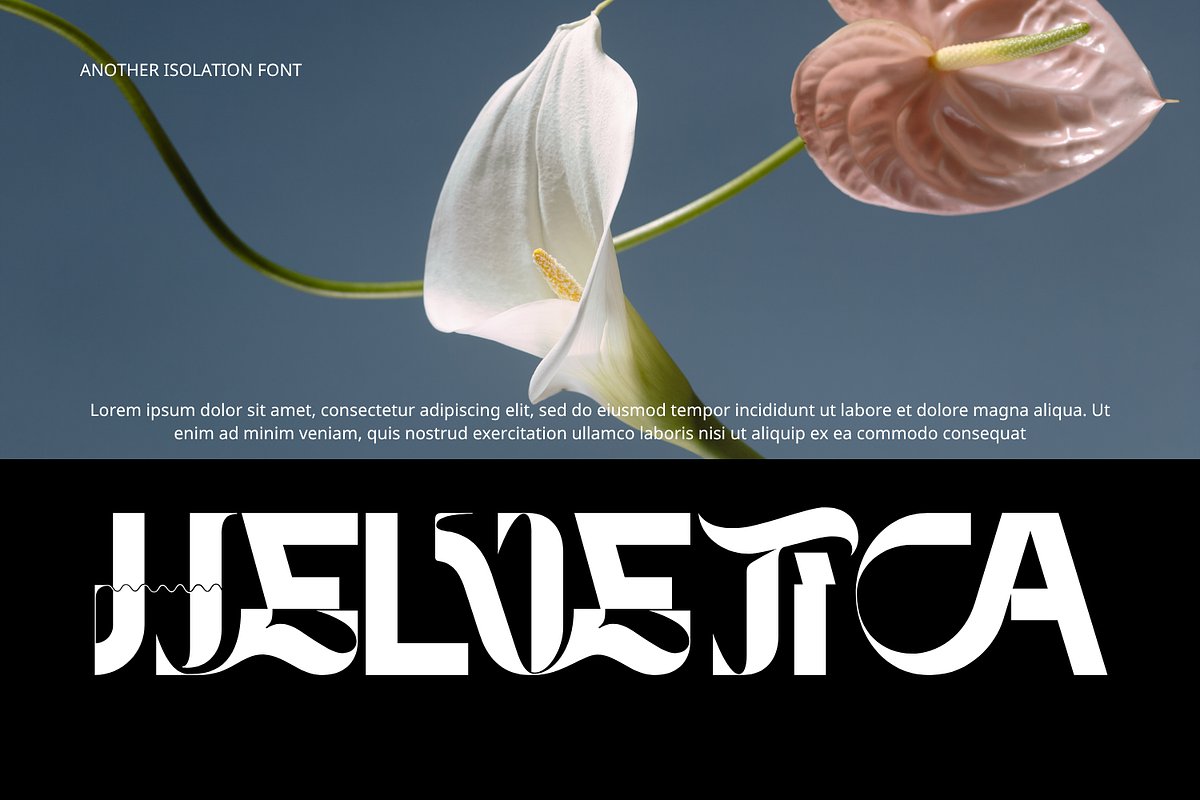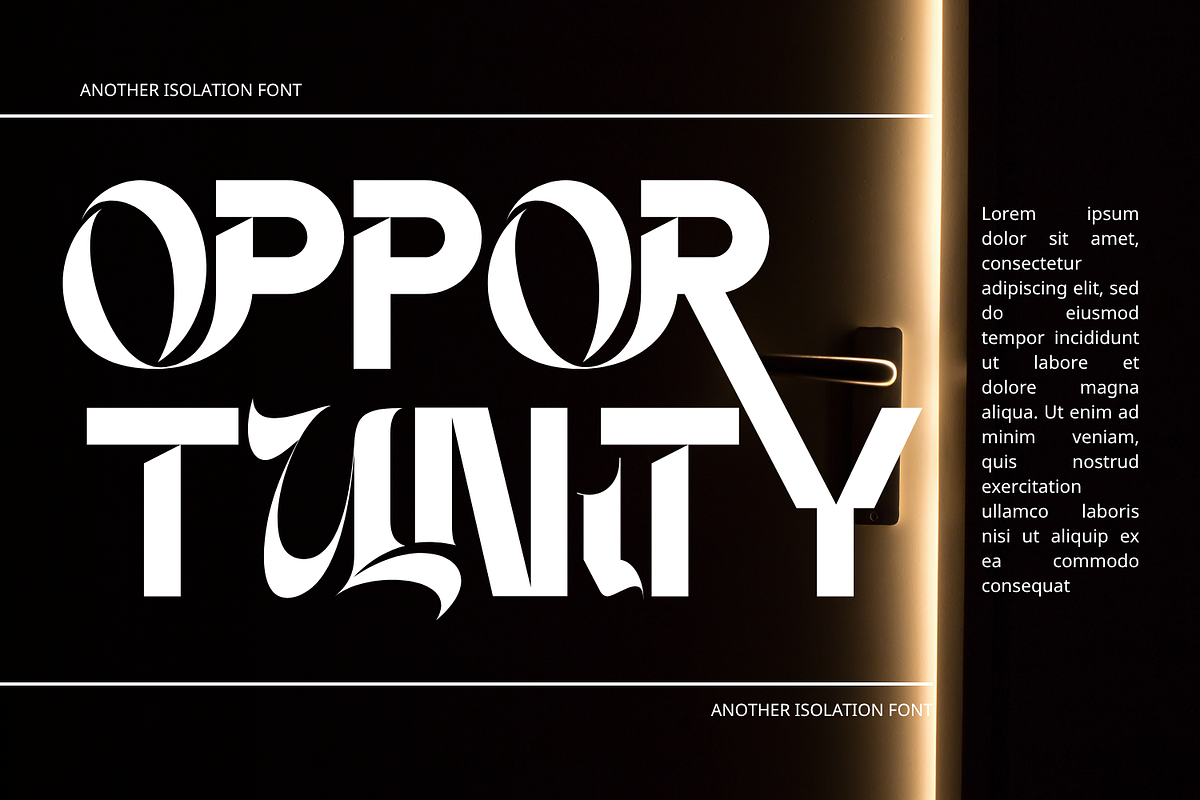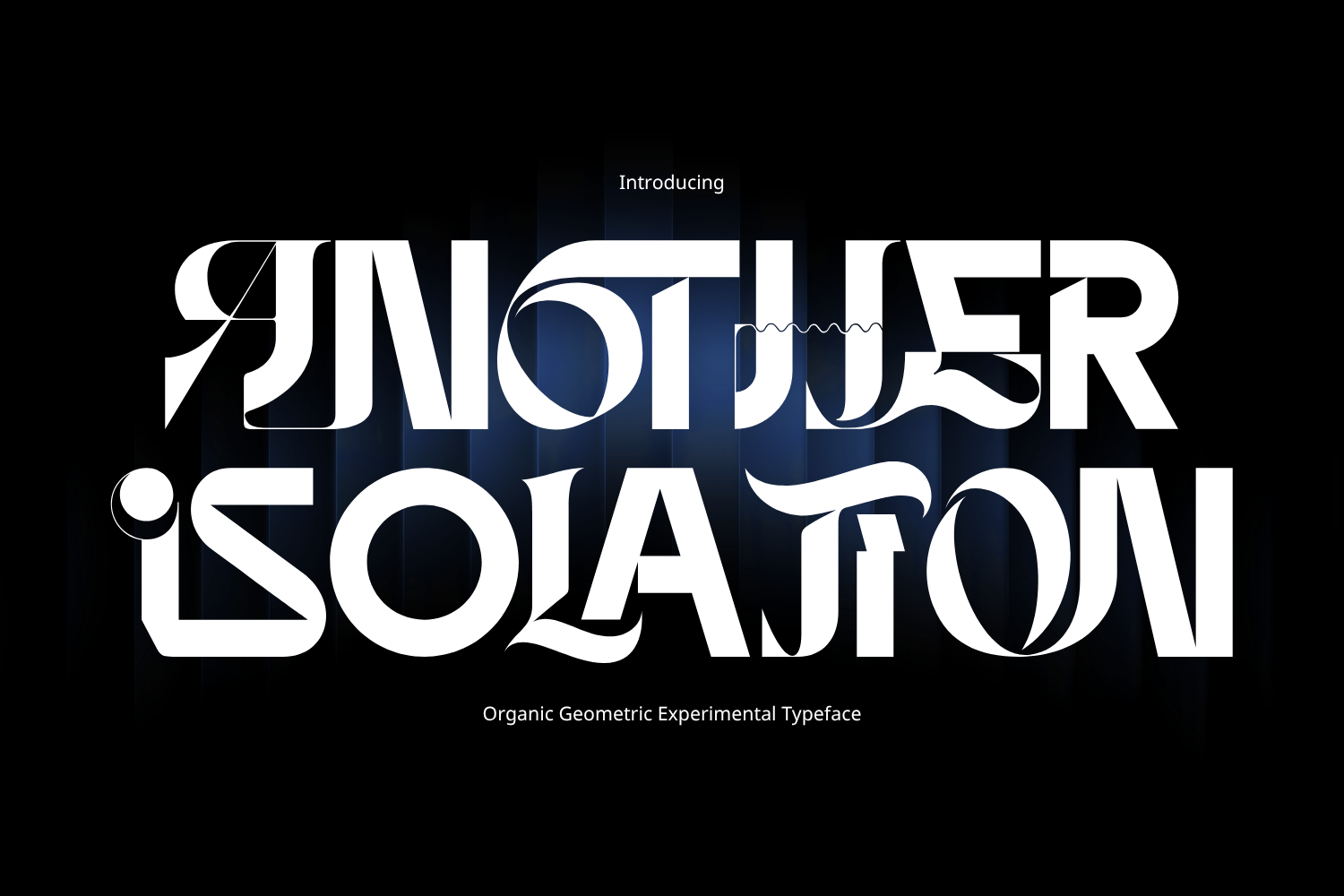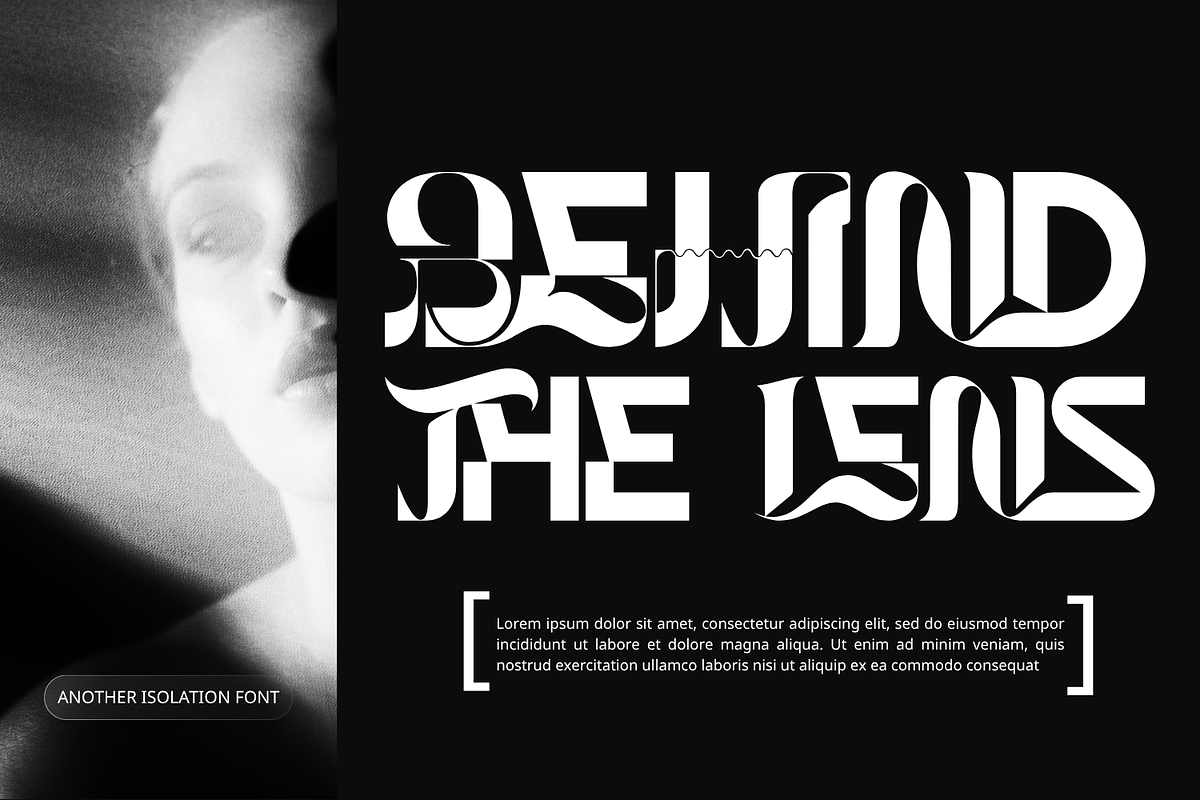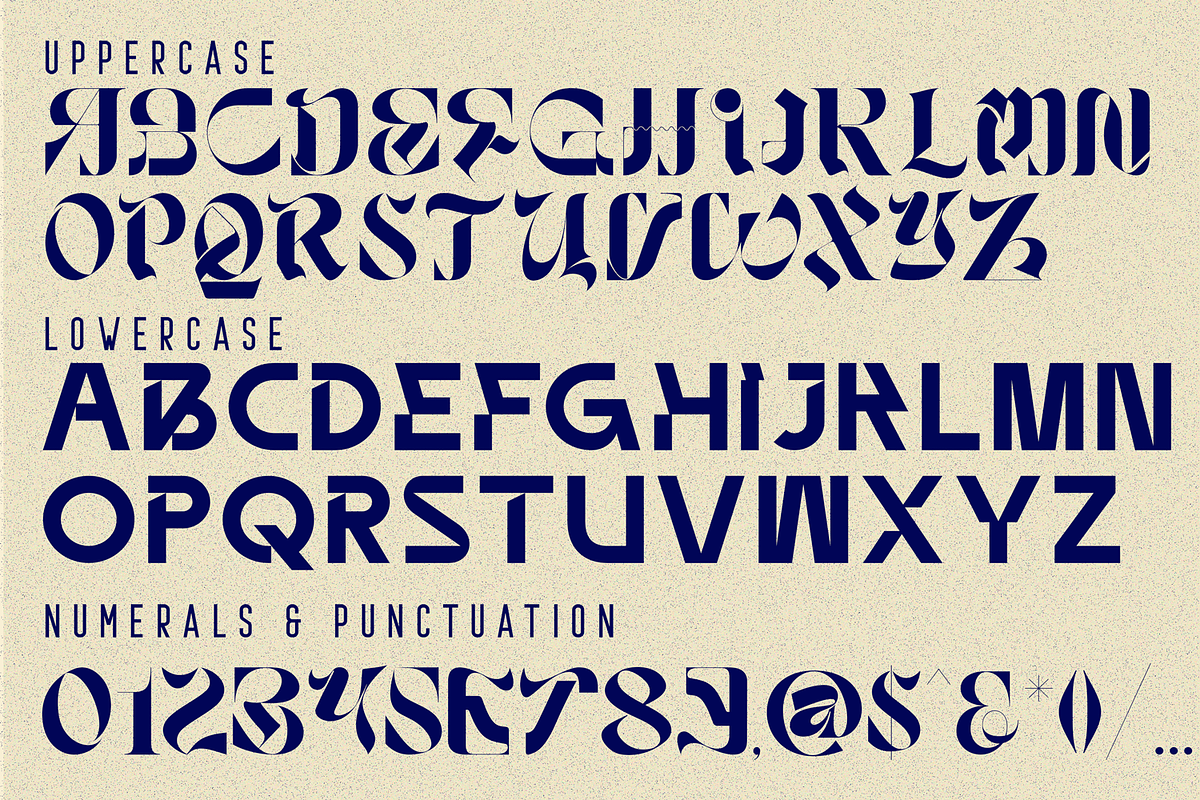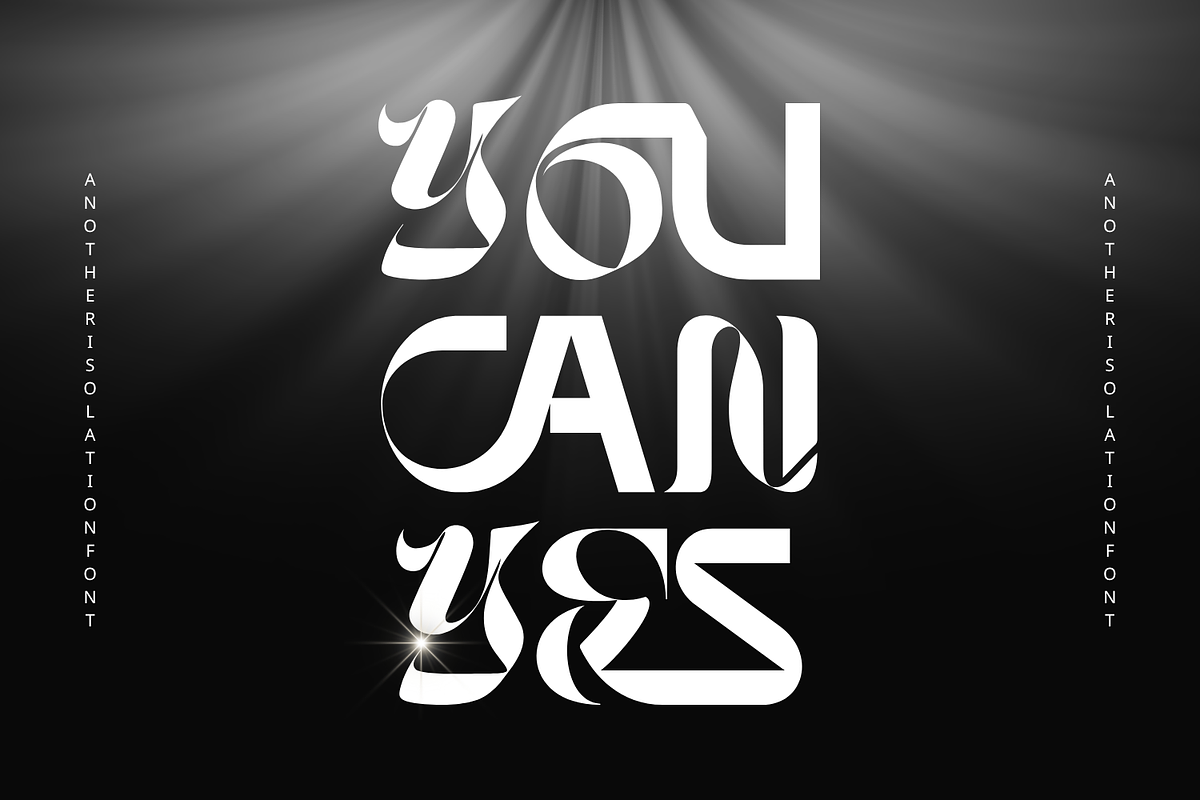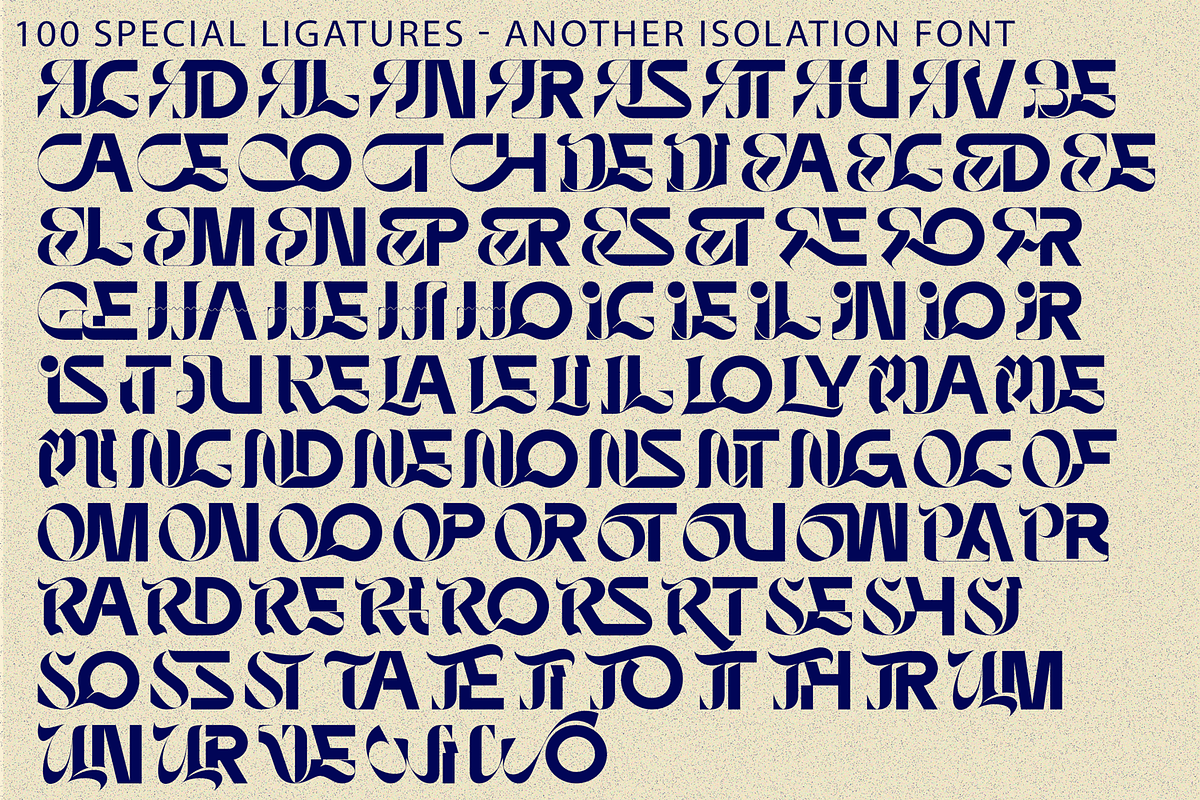
Another Isolation - Futuristic Font
Another Isolation - Futuristic Font – Experimental Acid Display & Liquid Neo-Gothic Font, is a spellbinding avant-garde display font crafted at the crossroads of experimental liquid graphics, sharp Neo-Gothic calligraphy, and futuristic symbolism. Defined by its heavy high-contrast stems, sweeping fluid swashes, and razor-sharp chiseled cutouts, this typeface brings an unmistakable underground aura and high-concept energy to modern visual design.Packed with iconic design elements—such as squiggly wave crossbars, floating orb accents, mirrored letterforms, and symbolic-inspired character architectures—Another Isolation transforms standard words into complex typographic art. It is the ultimate display choice for experimental music album covers, underground streetwear apparel, avant-garde art exhibition posters, dark fantasy gaming titles, and edgy editorial layouts.
Uppercase & Lowercase Letters
Around 100 Special Ligatures & Alternates
Accented Characters for multilingual support
🔤About 100 ligatures combined with Stylistic Alternates Font:
ac ad al an ar as at au av be ca ce ch co ct de di ea ec ed ee el em en ep er es et fe fo fr ge ha he hi ho ie ic il in io ir is it ju ke la le li ll lo ly ma me mi nc nd ne ng no nt ns oc of om on oo op or ot ou ow pa pr ra rd re ri ro rs rt se sh si so ss st ta te th ti to tr tt um un ur ve wi wo